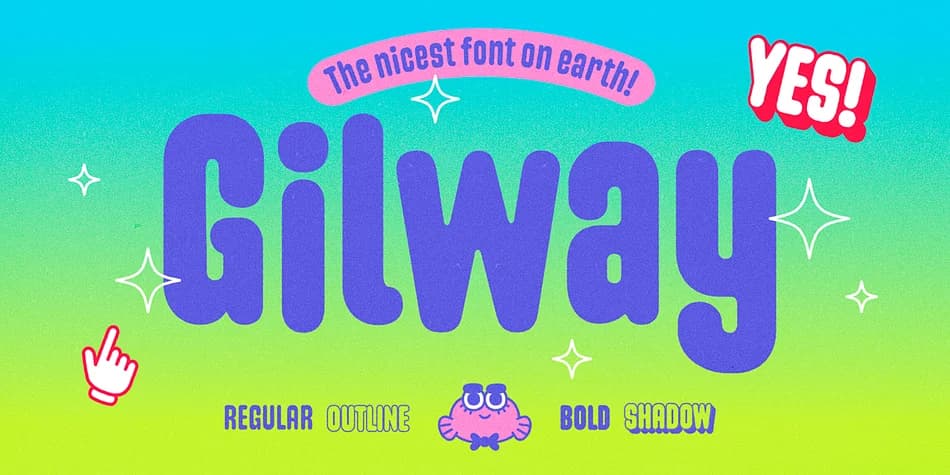
Gilway radiates warmth and charm from the first glance, inviting immediate connection. Created by designer Art Grootfontein, this rounded display typeface draws inspiration from 19th-century letterforms like Caslon Rounded and Schmale Runde Grotesk, then reimagines them with a distinctly hand-drawn quality that feels truly alive. Subtle irregularities throughout give the typeface real personality while maintaining strong readability across a wide range of applications and sizes.
What distinguishes Gilway is how the layered styles work together, letting you build depth and dimension into your work effortlessly. An OpenType feature adds another layer of interactive play, making individual letters shift and animate in ways that feel organic rather than forced. This creative flexibility makes it shine for wedding invitation suites, custom apparel branding, boutique product packaging, vintage-inspired event posters, and hand-lettered logo design work. The typeface occupies that rare and valuable space between decorative flourish and true utility, bold enough for strong impact but never overwrought or difficult to read at any size.
Gilway Font is a display font that shines as a display or heading face. Pair it with a clean sans-serif or serif font for body text โ the contrast creates a clear hierarchy while the two styles stay balanced and easy to read.